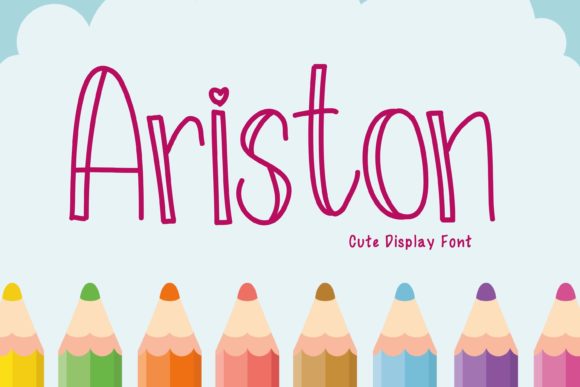
Designers, say hello to Ariston, the display font that transforms resumes into masterpieces! Crafted by the brilliant jennythip, this font is not just a style, it's a statement. Ariston's clean lines and distinctive curves add a touch of sophistication to any design. It's the perfect font to make your words dance on the page and leave a lasting impression.
With Ariston, you have the power to turn your resume into a captivating story that speaks volumes about your skills and creativity. Its versatile design makes it suitable for a wide range of creative endeavors. From branding projects to website designs, Ariston effortlessly elevates the visual appeal of any project.
But what truly sets Ariston apart is its ability to evoke emotion. Its natural and unique style creates a connection with the viewer, drawing them into your words and making them feel the passion behind your work. Whether you're creating a captivating logo, an engaging presentation, or simply adding a personal touch to your designs, Ariston is the perfect font to convey your message with power and finesse.
Don't settle for ordinary fonts that blend into the background. Choose Ariston, the font that commands attention and leaves a lasting impact. Its timeless beauty and versatility make it a must-have for any designer who wants to stand out from the crowd.
So, unleash your creativity and let Ariston transform your designs into stunning masterpieces that captivate and inspire. Get Ariston today and experience the difference a truly remarkable font can make!